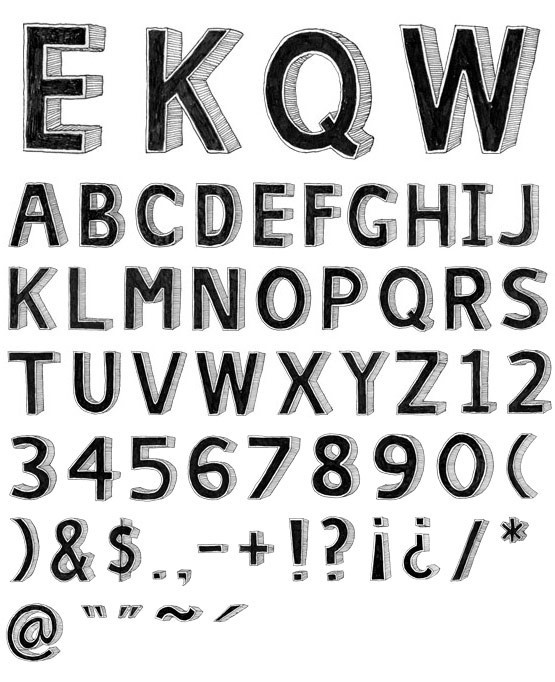
Bold and heavy with a fun and playful 3D look, these sketchy, extruded characters are great for headlines and anything needing a heavy yet impactful typeface. Custom, hand-drawn, sans serif type set. Its uppercase characters are 3” high at 300 dpi. Note: Individual type sets are available as a digital download only. (via Volume1 Type01 – Individual Type Sets)